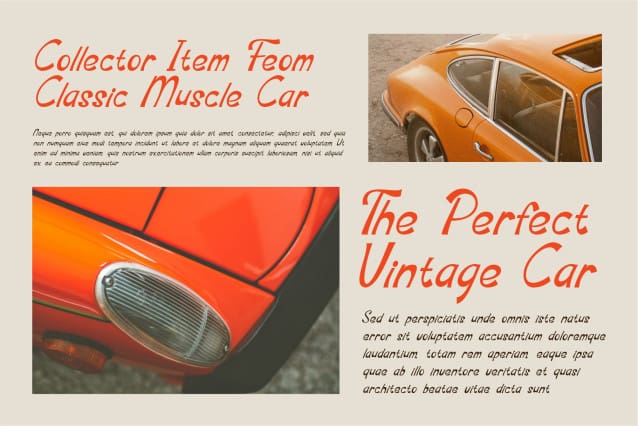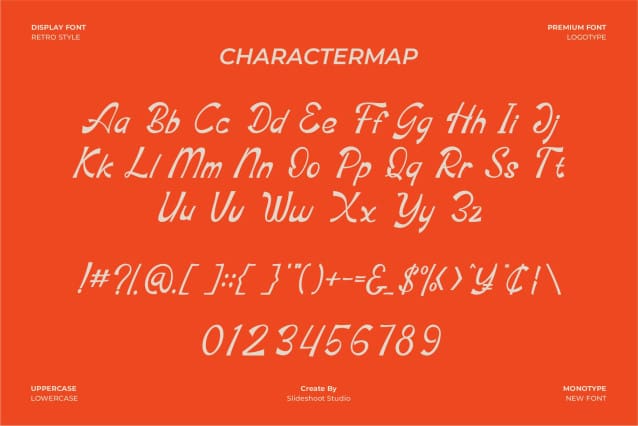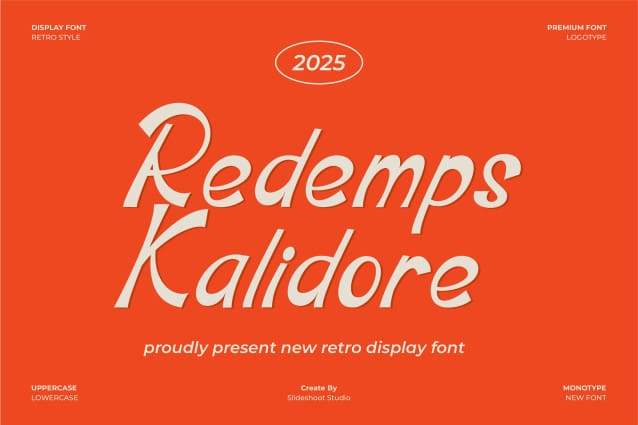
Redemps Kalidore Font
Redemps Kalidore is a retro font, trendy, bouncy and cute display font. It has a unique character with wood theme. It is perfect to be combined with invitation card designs, company logos, movie titles, movie names, business cards, book titles, brand names and various other designs.